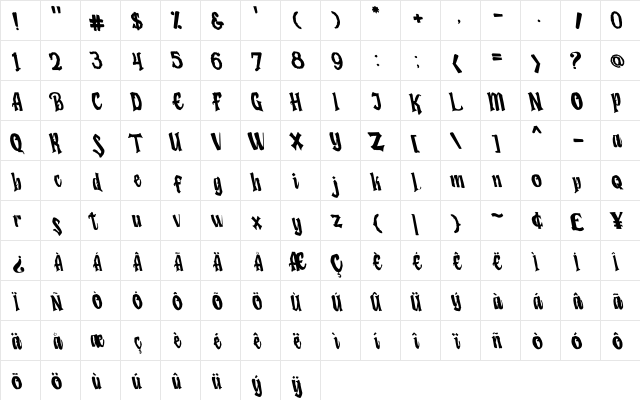
Humingson Rough Tilted Regular
Design Context for Humingson Rough Tilted Typeface
Humingson Rough Tilted embraces imperfection — its rough, textured character adds raw authenticity to designs that want to feel lived-in and unconventional.
A strong fit for alternative music projects, graffiti-adjacent design, and anything that deliberately resists polish.
Pro Tip: Use Humingson Rough Tilted at larger sizes where the texture and irregularity of each letterform can be clearly seen — it loses its character at small sizes.